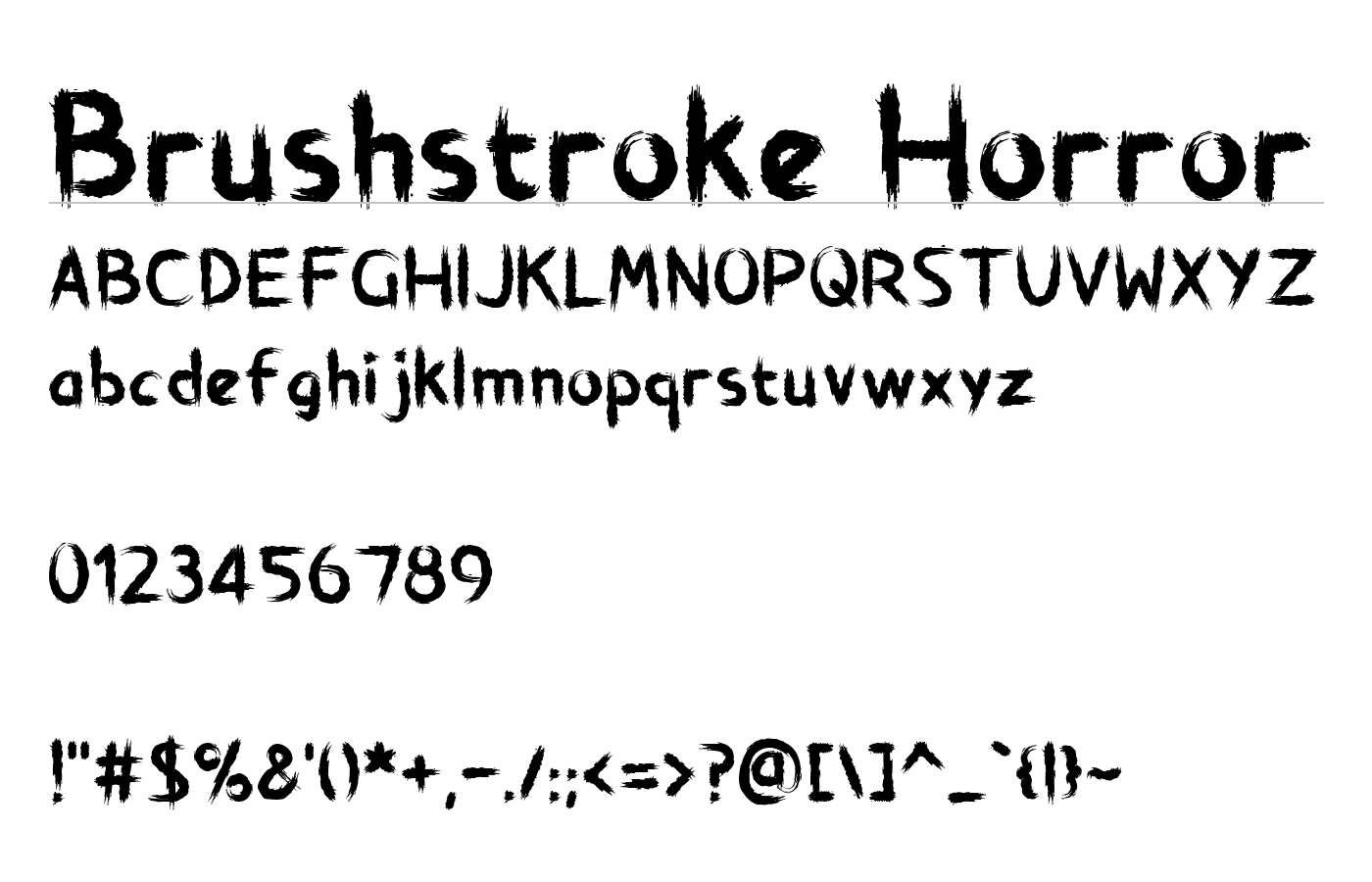
Brushstroke Horror is a distinctive sans serif font characterized by rough, irregular brush-like strokes that create a gritty and unsettling appearance. Its uneven edges, medium weight, and dynamic texture make it perfect for horror-themed designs, evoking a raw, eerie atmosphere. This font works best for eye-catching headlines, posters, and branding in the horror or thriller genres where a chaotic, handcrafted feel enhances the mood.
Brushstroke Horror Font
About Brushstroke Horror Font